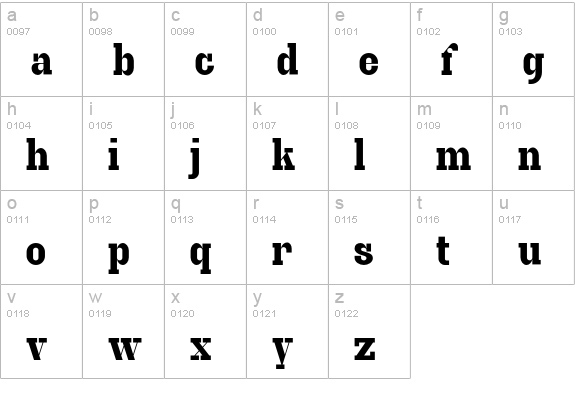
Granite-Regular is the standard, neutral variant in the Granite typeface family \xE2\x80\x94 well suited to general body text, paragraphs, and standard typographic work.
Granite-Regular font is a versatile and modern typeface that exudes sophistication and elegance. With its clean lines and sharp edges, this font is perfect for a wide range of design projects, from branding to editorial design. The sturdy and reliable appearance of Granite-Regular font makes it a popular choice for conveying a sense of professionalism and authority. Best of all, Granite-Regular font is available for free download at FontsMarket.com. This means you can easily access this high-quality font without any cost, making it a valuable addition to your font library. Whether you're working on a personal project or a client's design, Granite-Regular font will help elevate your work to the next level. Download it today and start creating stunning designs with ease.